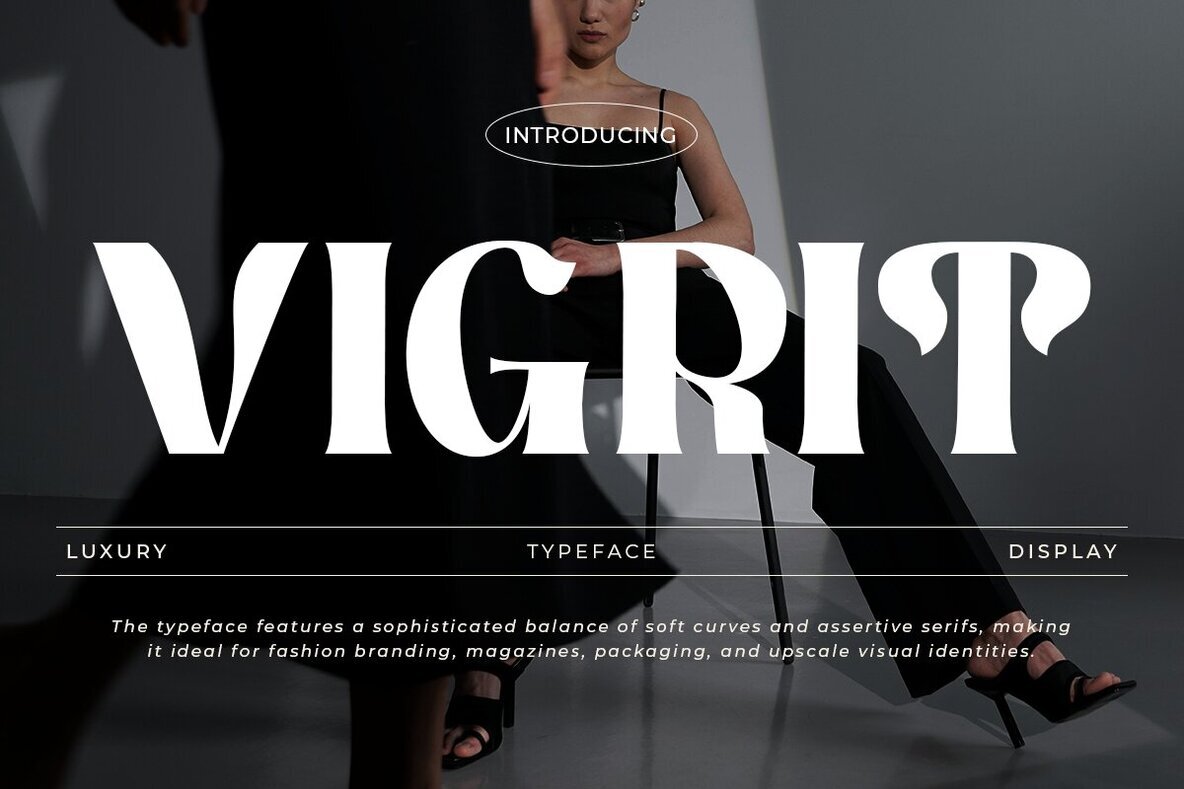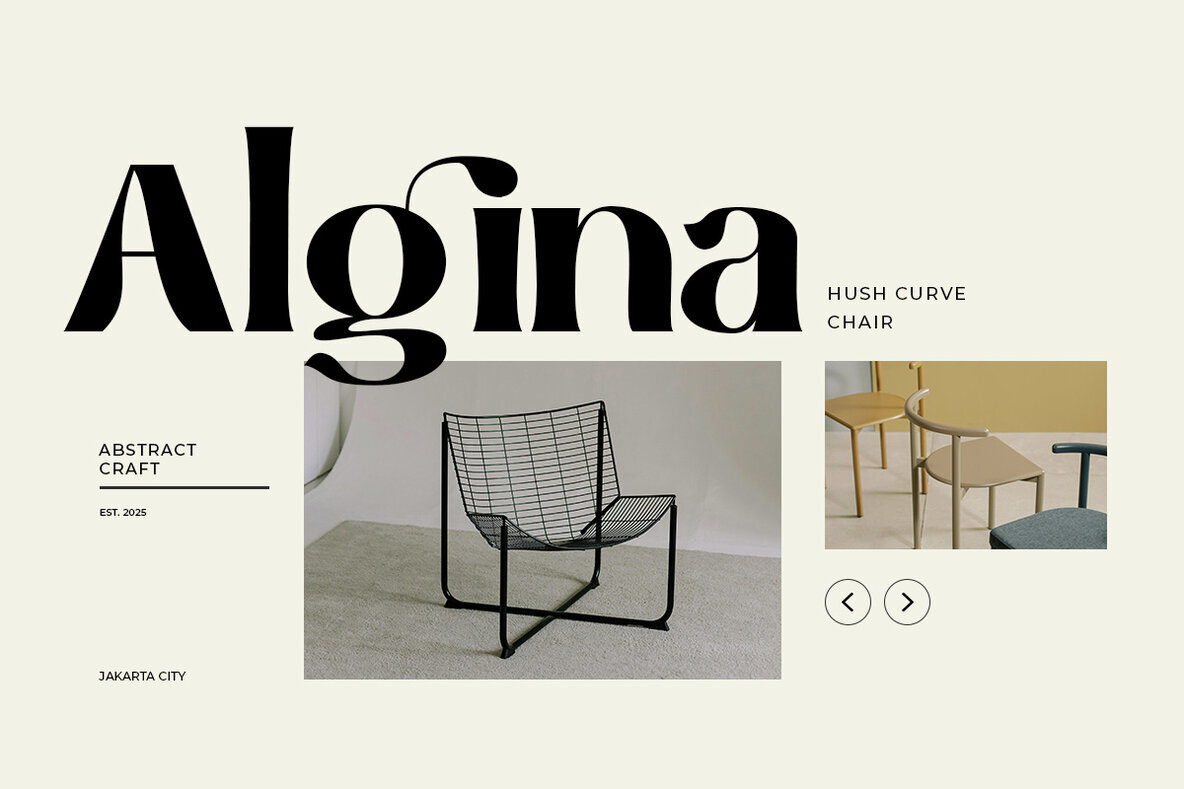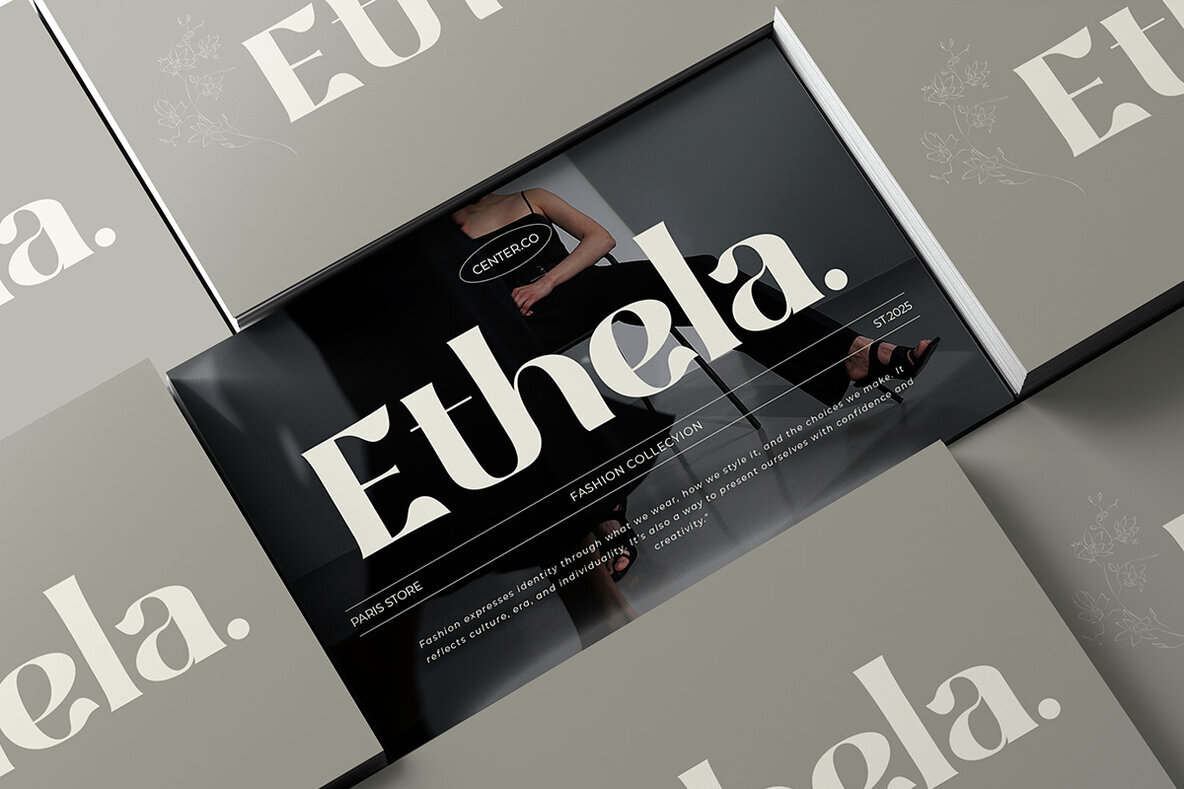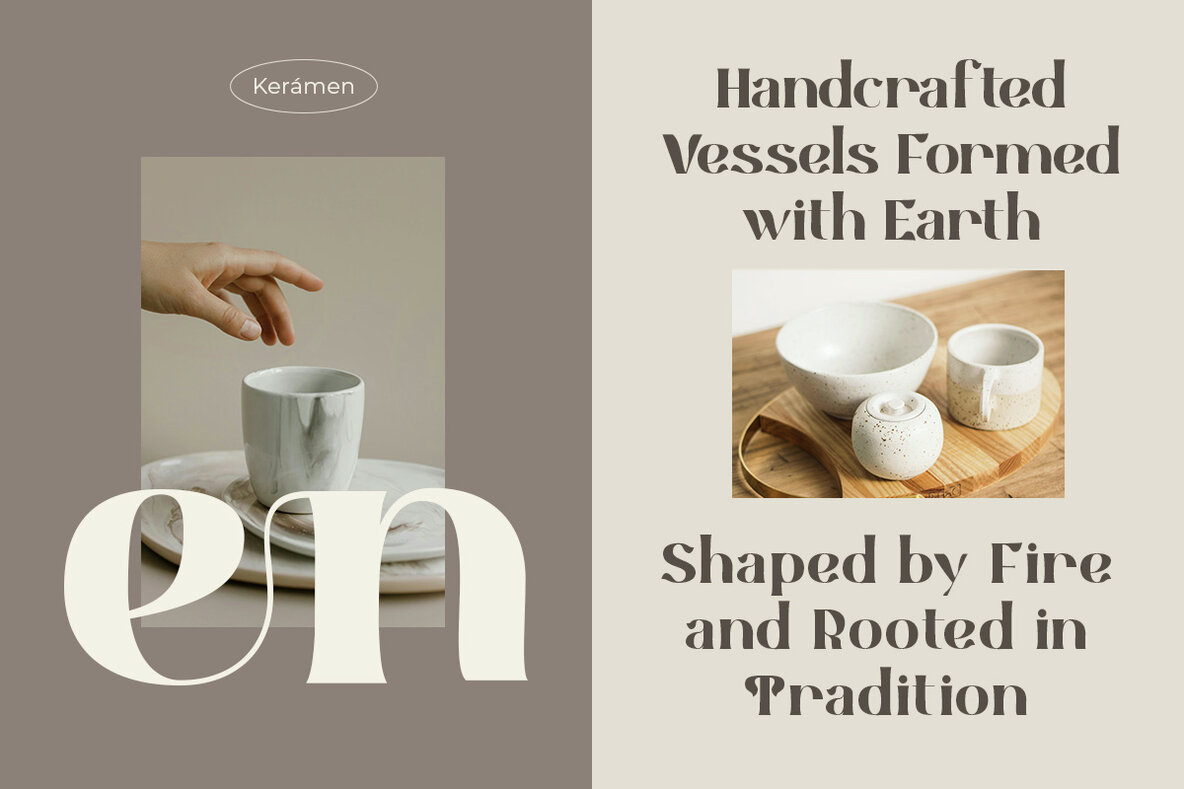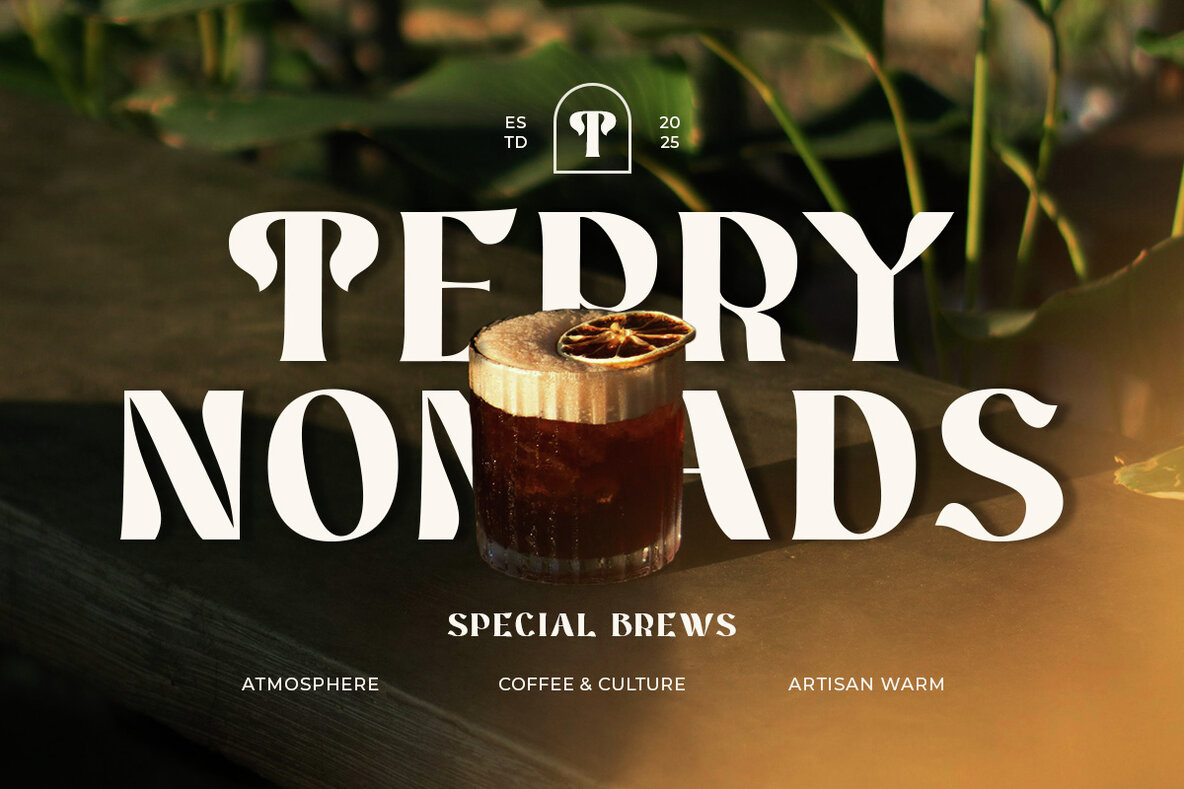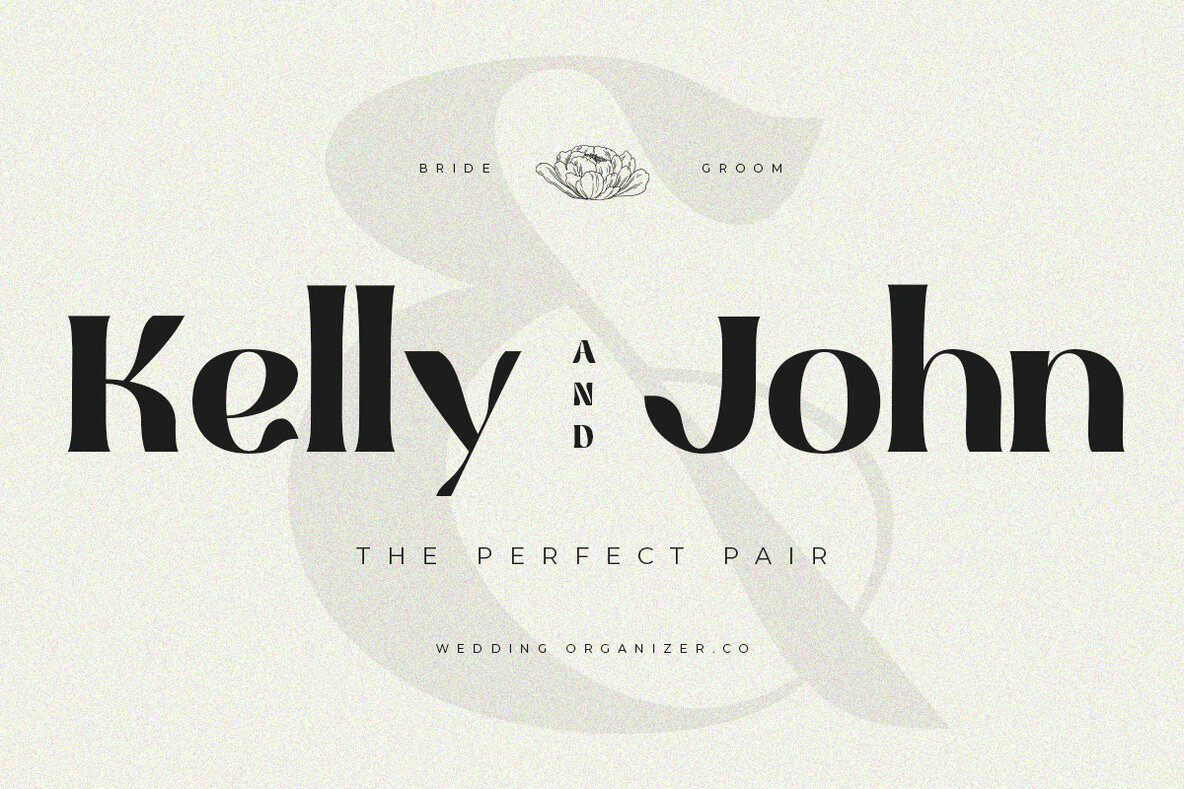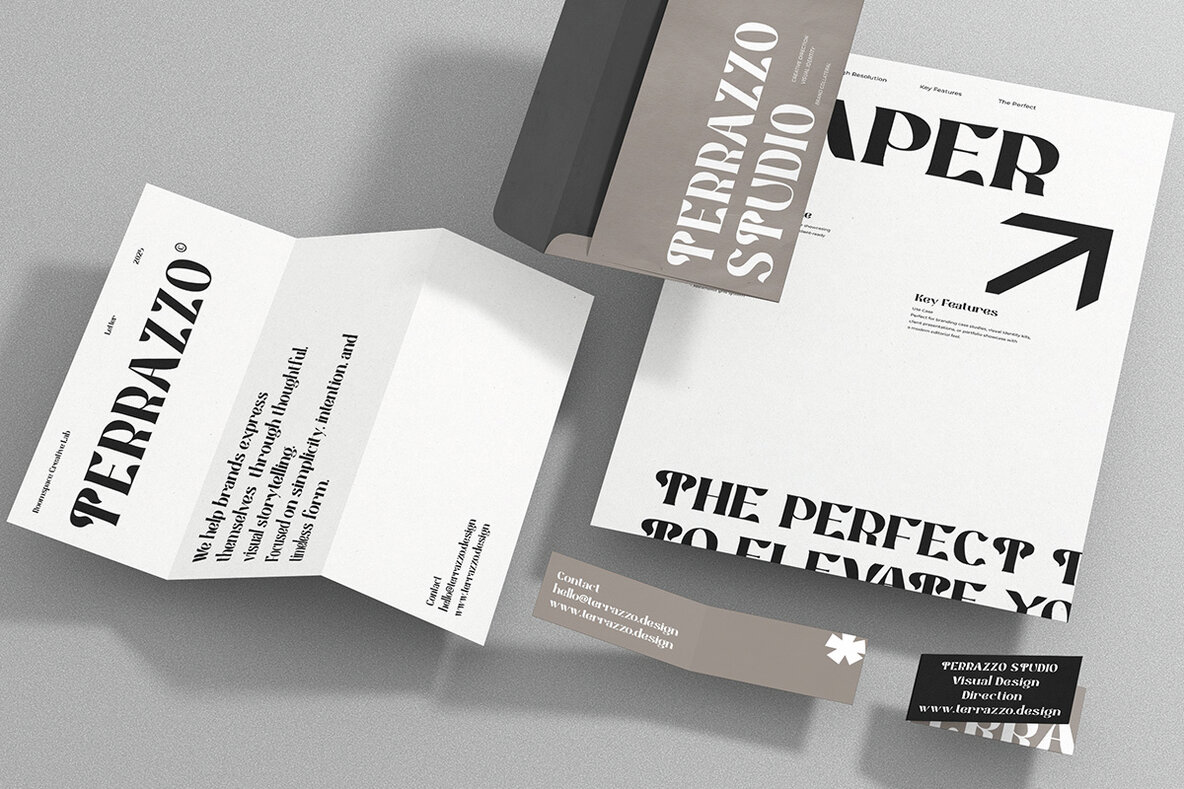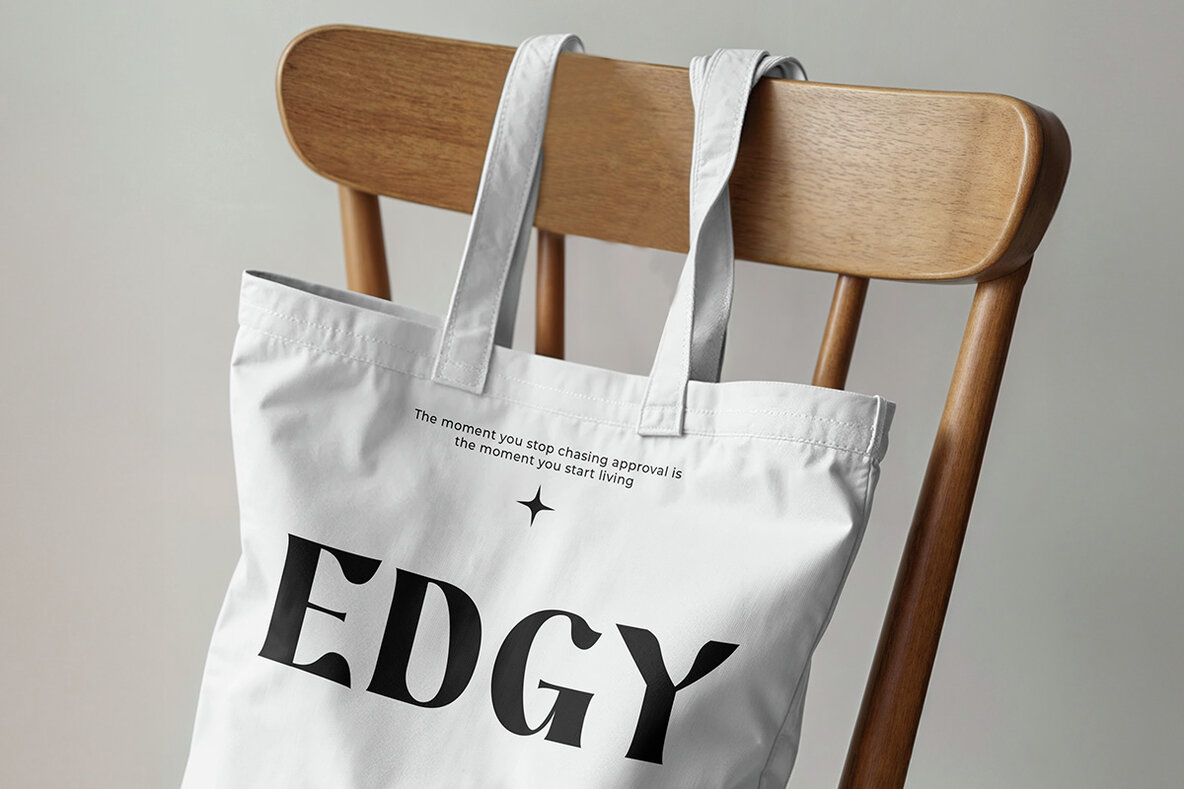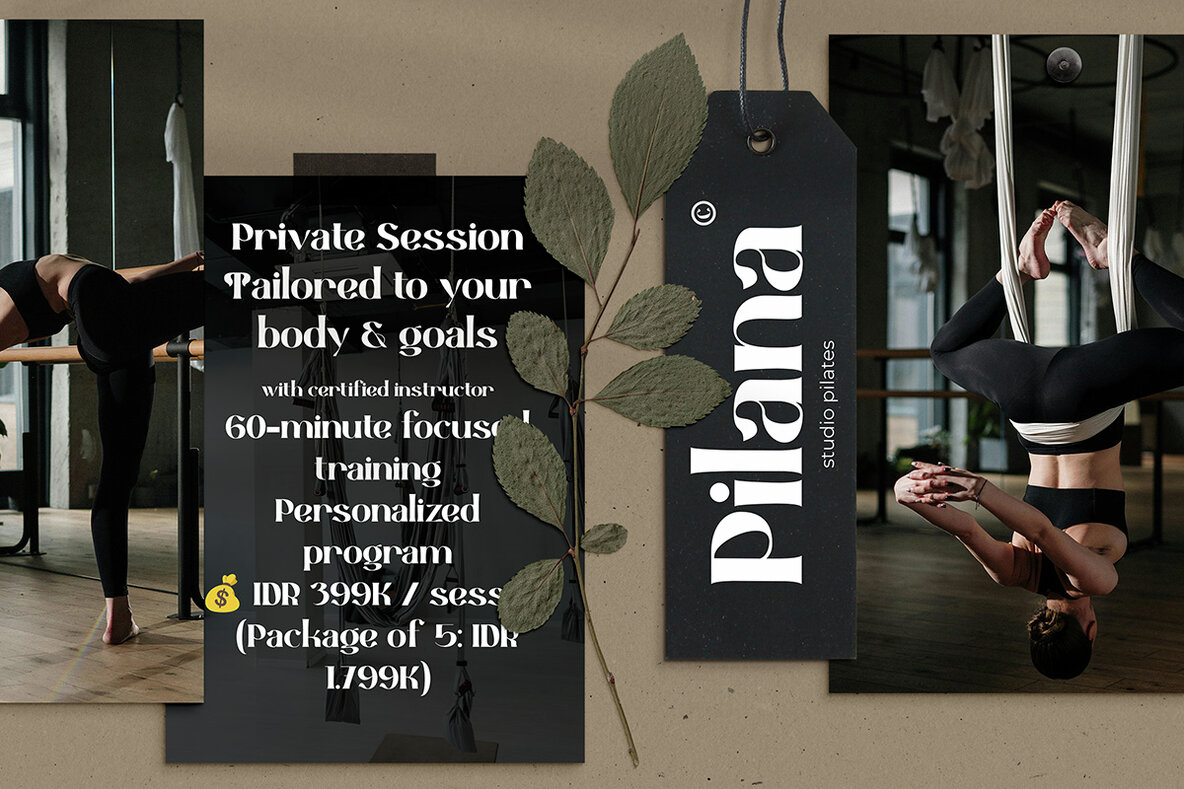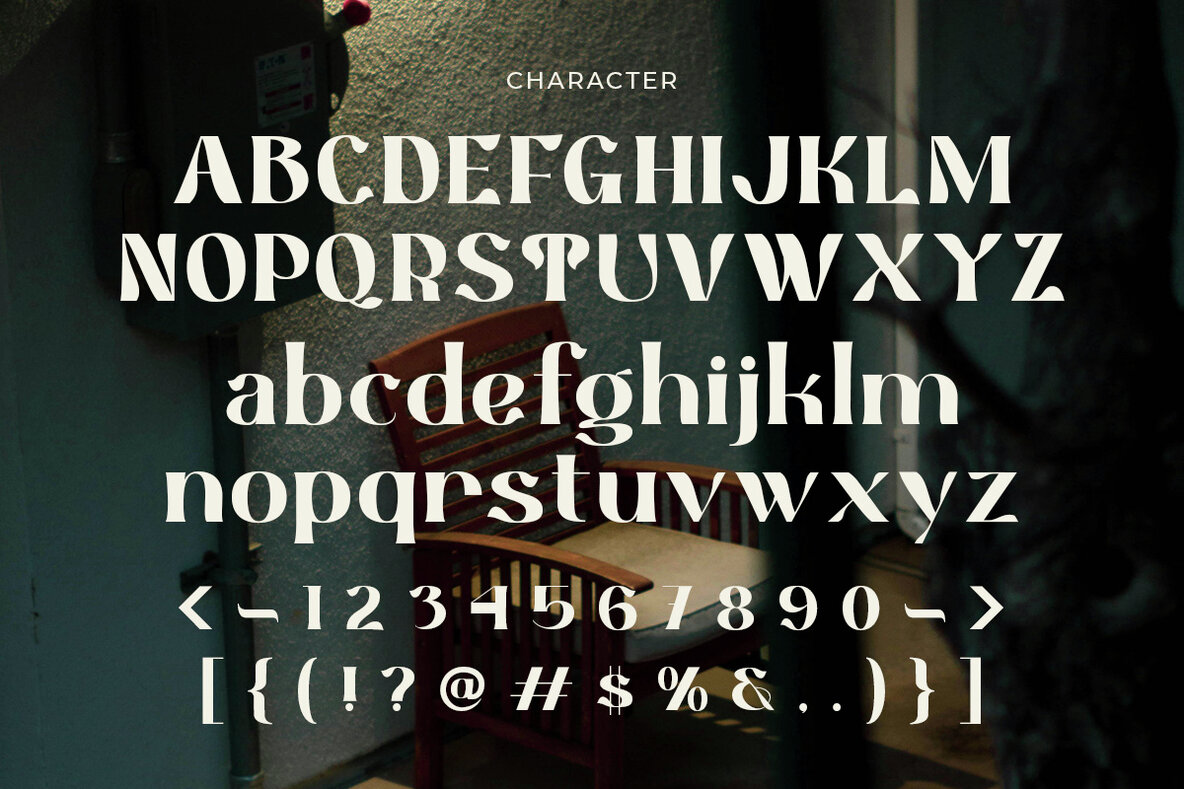
Vigrit Font
Vigrit Regular
Vigrit exemplifies opulence and sophistication in serif display fonts, crafted meticulously for designers with an eye for bold elegance and confident branding. Its high contrast strokes, bespoke ligatures, and assertive curves create a seamless blend of modern precision with a touch of timeless luxury. This versatile font enhances logos, headlines, and editorial layouts, making it an ideal choice for luxury branding, tech-centric identities, or corporate designs.Vigrit: Elegant Serifs for Sophisticated Designs